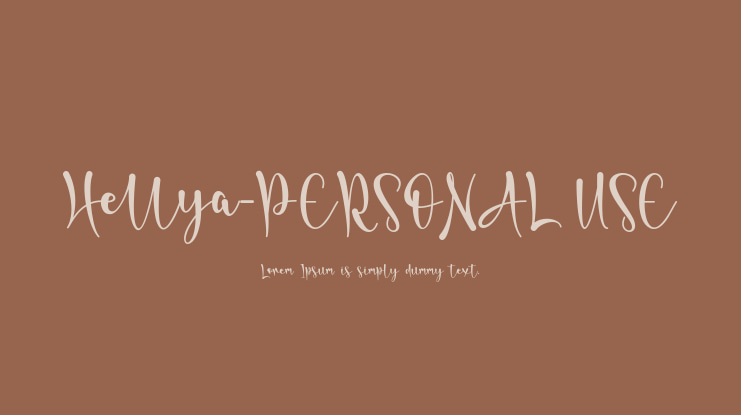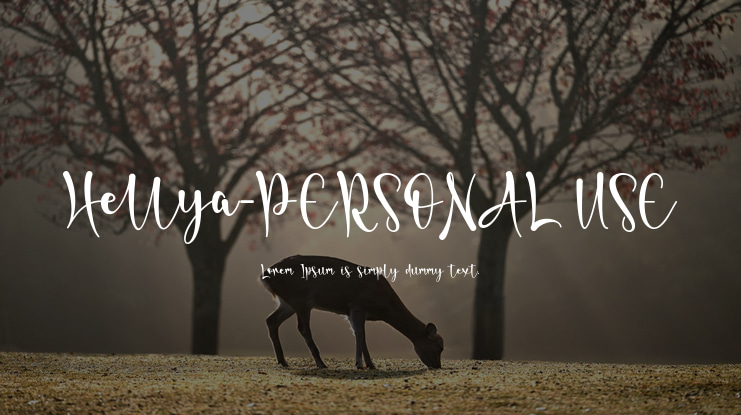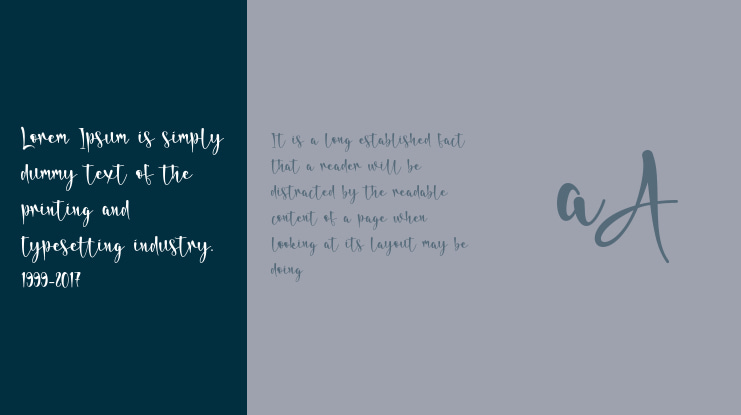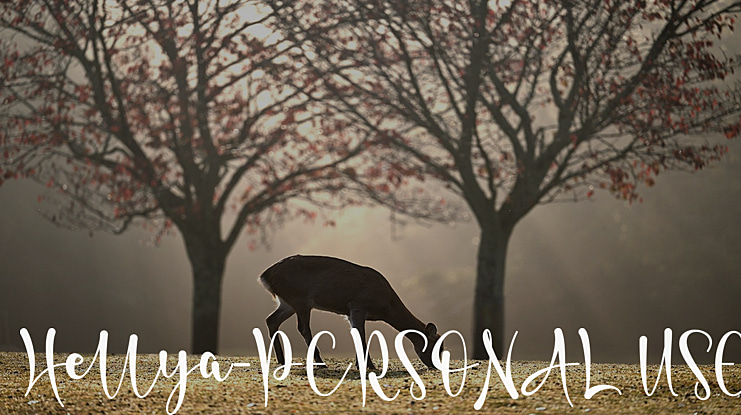
Hellya-PERSONAL USE Font
Hellya is a handwritten font that is designed with great care so as to create sweet, beautiful, elegant, and very stylish writing characters.
Hellya is very suitable for wedding invitations, greeting cards, business cards, product designs, etc.
Hellya font will make everything even more beautiful!